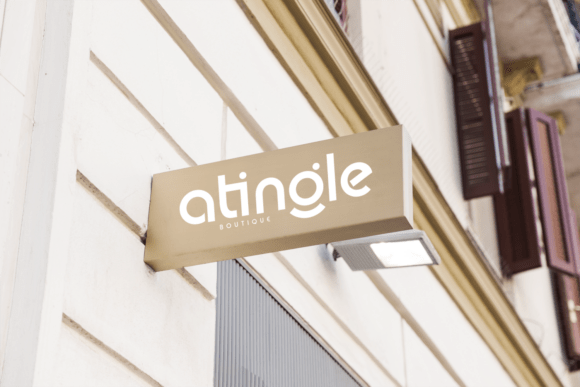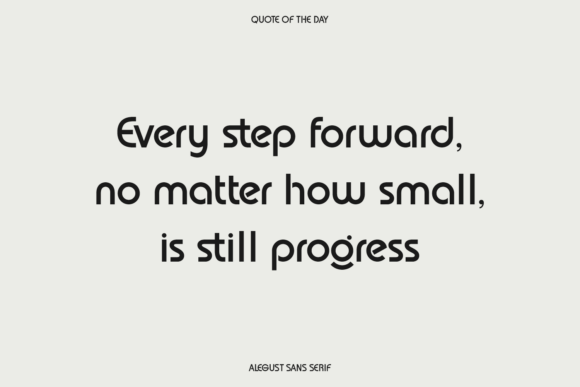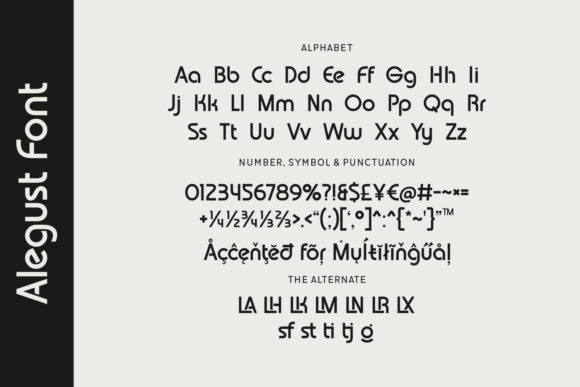
Introducing Alegust: The Modern Sans Serif Typeface for Elegant Designs
In the world of typography, a new font has emerged that is poised to make a significant impact on the design industry. Meet Alegust, a modern sans serif typeface that combines simplicity with elegance, making it an ideal choice for designers and crafters looking for a versatile font for their projects.
A Promotional Image for Alegust
The Characteristics of Alegust
Alegust is a clean and sophisticated font that features clean lines, simple shapes, and a refined character. Its modern sans serif design makes it perfect for a wide range of applications, from branding and logos to editorial layouts and user interface design. The font’s elegance and simplicity make it an excellent choice for designers who want to create a professional and sleek look for their projects.
Key Features of Alegust
- Clean Lines: Alegust features clean lines and simple shapes, making it easy to read and understand.
- Sophisticated Character: The font has a refined character that gives it a professional and elegant look.
- Versatility: Alegust is a versatile font that can be used for a wide range of applications, from branding and logos to editorial layouts and user interface design.
- Modern Sans Serif Design: The font’s modern sans serif design makes it perfect for designers who want to create a sleek and modern look for their projects.
Use Cases for Alegust
Alegust is an excellent choice for a wide range of design projects, including:
- Branding: Alegust’s clean and sophisticated design makes it perfect for branding projects, such as logos, business cards, and letterheads.
- Editorial Layouts: The font’s elegance and simplicity make it an excellent choice for editorial layouts, such as magazines, newspapers, and books.
- User Interface Design: Alegust’s modern sans serif design makes it perfect for user interface design, such as mobile apps, websites, and software.
- Logos: The font’s clean lines and sophisticated character make it an excellent choice for logos and wordmarks.
Why Choose Alegust?
There are many reasons why designers and crafters should choose Alegust for their projects. Here are a few:
- Unique Design: Alegust has a unique design that sets it apart from other fonts.
- Versatility: The font’s versatility makes it perfect for a wide range of applications.
- Elegance: Alegust’s elegance and simplicity make it an excellent choice for designers who want to create a professional and sleek look for their projects.
- Easy to Read: The font’s clean lines and simple shapes make it easy to read and understand.
In conclusion, Alegust is a modern sans serif typeface that is poised to make a significant impact on the design industry. Its clean lines, sophisticated character, and versatility make it an excellent choice for designers and crafters looking for a font that can be used for a wide range of applications. Whether you’re working on a branding project, editorial layout, or user interface design, Alegust is an excellent choice.